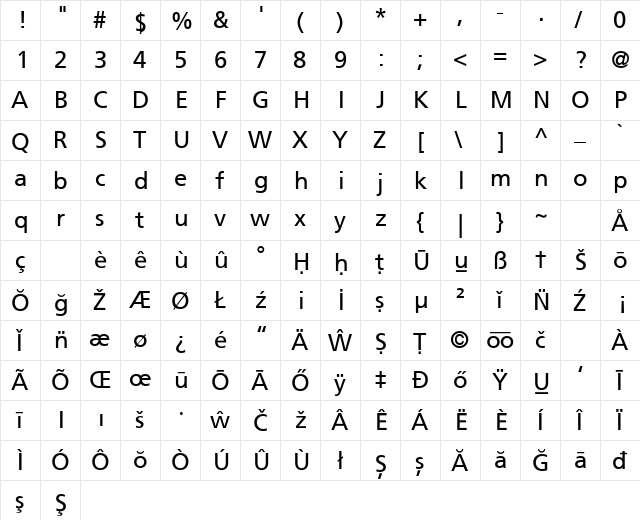
Frutiger SAIN Rm v.1 Roman
Design Context for Frutiger SAIN Rm v.1 Typeface
Frutiger SAIN Rm v.1 is a composed and adaptable typeface that performs quietly and consistently across a wide range of design contexts.